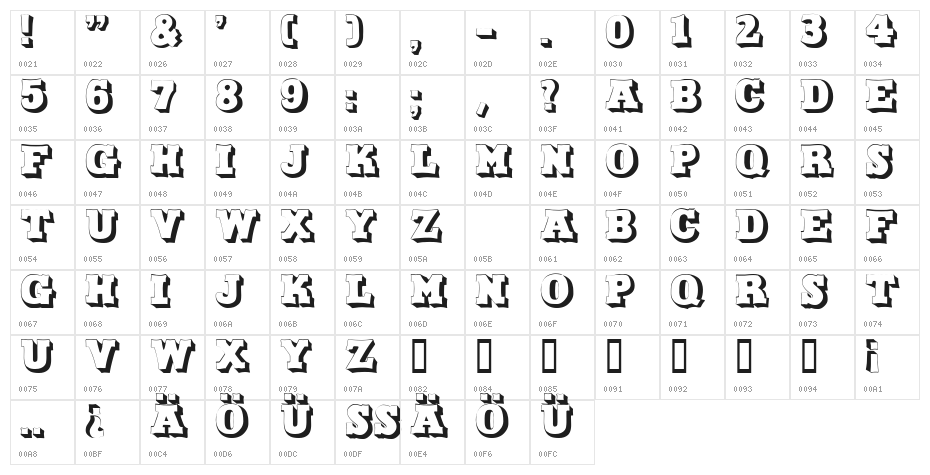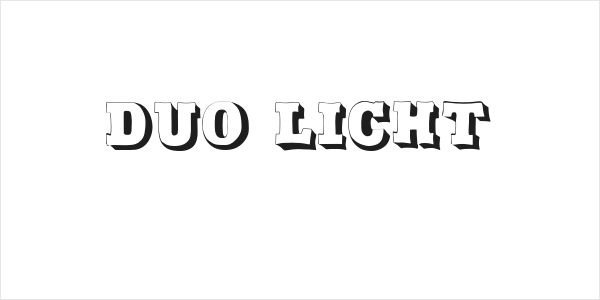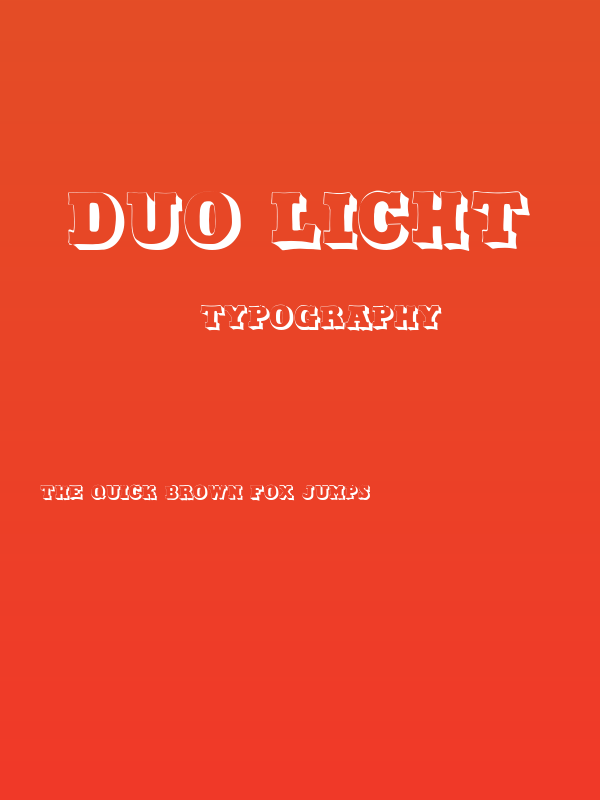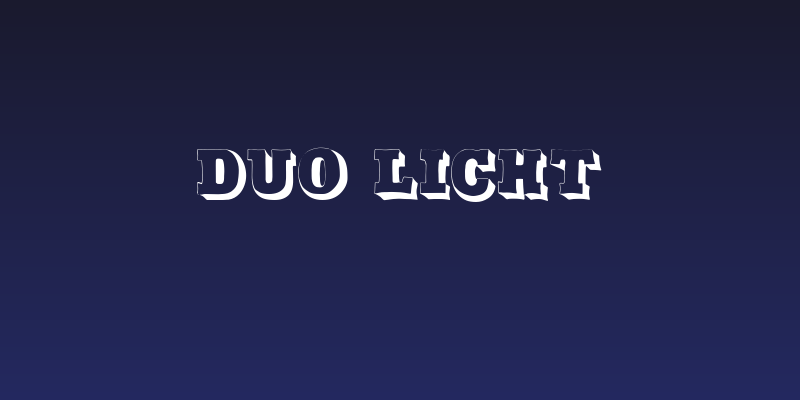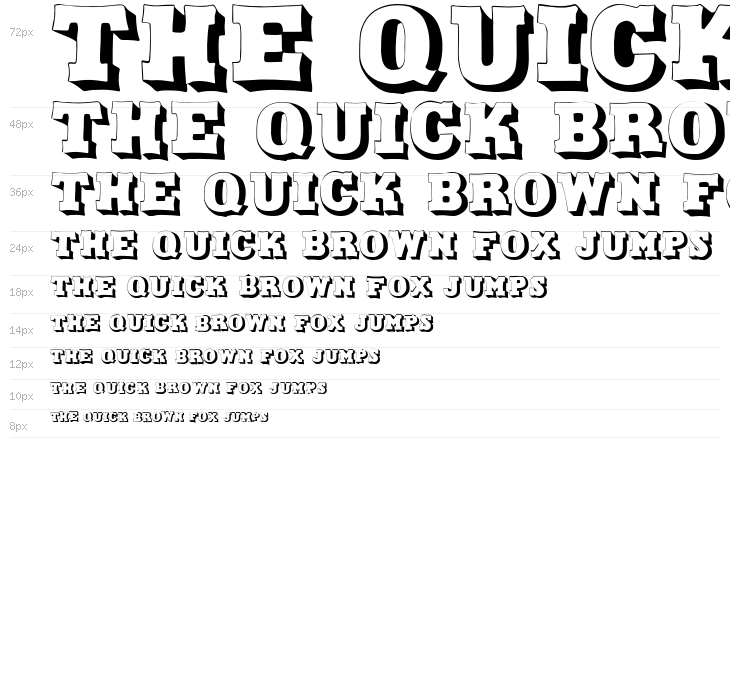
Duo Licht Font
Duo Licht Description
This font features a bold, three-dimensional style with a shadow effect that gives it a striking and impactful appearance. The characters are uppercase and have a strong, blocky design that is both modern and retro, reminiscent of vintage signage or poster art. The shadowing adds depth, making the letters appear as if they are popping off the page. The font is highly decorative, making it ideal for attention-grabbing headlines or titles. Its boldness ensures readability from a distance, while the shadow effect adds a layer of sophistication and style.
Overall StyleVintage
Proposed ProjectsIdeal for poster design, retro-themed branding, event flyers, and any project requiring a standout headline.